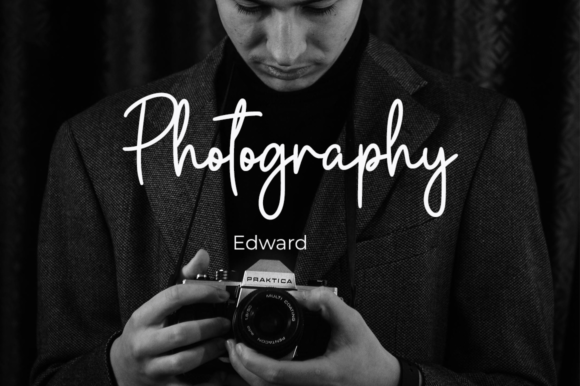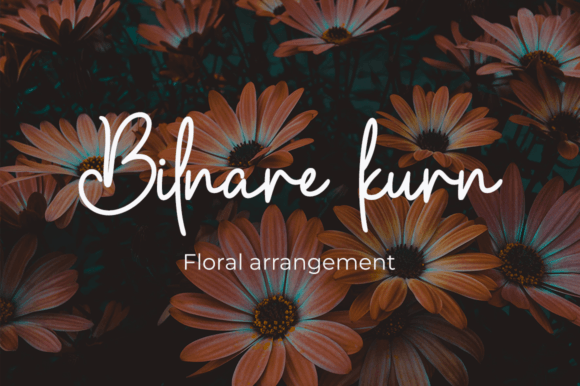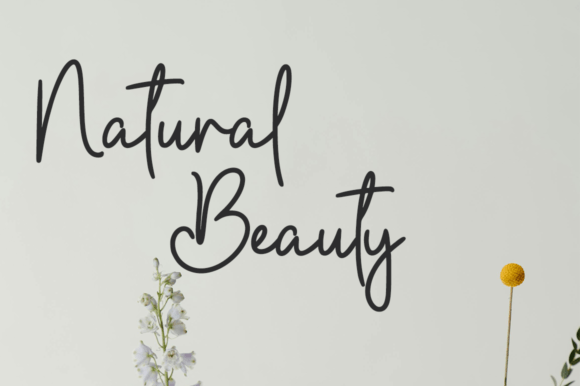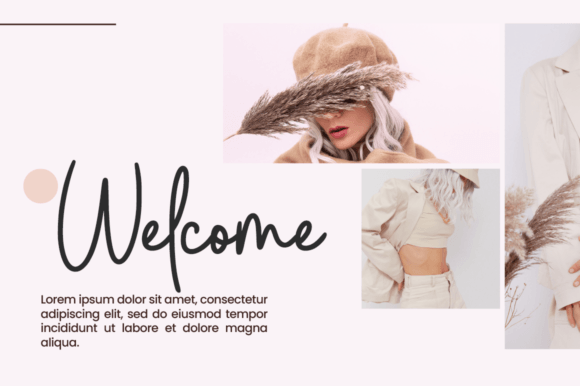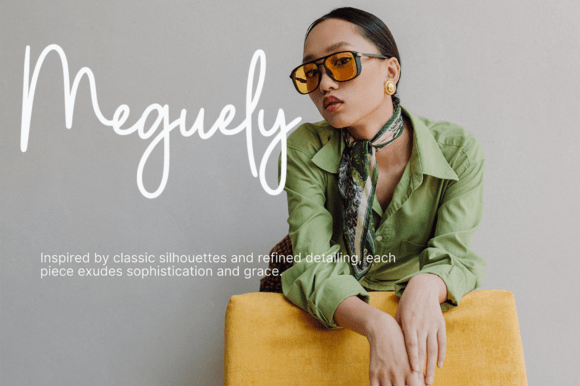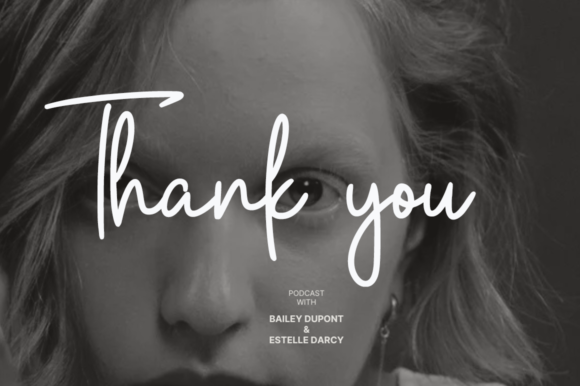
Gangka Font: The Elegance of Vintage Calligraphy for Modern Designers
There’s a moment in every designer’s life when they stumble upon a font that makes them stop in awe. Maybe it’s the perfect blend of elegance and playfulness, or perhaps it’s the way it transports them to a bygone era. For me, it was when I discovered the timeless charm of vintage calligraphy, which inspired me to explore further. And that’s when I came across the Gangka Font.
Skillfully designed to infuse sophistication into every stroke, Gangka Font is the perfect choice for designers seeking to elevate their work. Whether it’s a logo, invitation, or greeting card, Gangka Font adds a touch of class that speaks volumes. Its versatility makes it a valuable asset for designers, and its subtle charm is sure to leave a lasting impression on any audience.
Gangka Font Key Features
- Font Family: Gangka is a typeface designed for digital and print media, offering a unique blend of traditional and modern elements.
- Character Set: The font includes a comprehensive set of characters, including Latin, Greek, and Cyrillic alphabets, as well as punctuation and symbol sets.
- Unique Characteristics: Gangka’s distinctive design features include subtle brushstrokes, rounded edges, and a harmonious balance of thick and thin strokes, making it suitable for a wide range of applications.
Gangka Font Review
Overall, I have mixed feelings about the Gangka font. While it has some interesting features, it also has some limitations that prevent it from being a top choice for designers.
- The Gangka font has a unique and exotic feel to it, which can be perfect for projects that require a touch of cultural flair.
- The font is highly legible, even at smaller font sizes, which makes it suitable for body text and other areas where readability is crucial.
- The font family includes a range of weights and styles, making it versatile and easy to use in different design contexts.
- The Gangka font can be difficult to read at very large font sizes, where the bold lines and heavy strokes can become overwhelming.
- The font lacks a clear and consistent naming convention, which can make it confusing to navigate and use in design projects.
- The Gangka font is not optimized for digital use, which can result in blurry or distorted text when displayed on screens.
Overall, I would recommend the Gangka font for specific projects where its unique feel and cultural significance are valuable. However, for general design use, I would choose a more versatile and user-friendly font.
Tips for Getting the Most Out of Gangka Font
Here are some tips to help you get the most out of Gangka Font:
- Use Gangka Font for titles and headings to add a touch of elegance and sophistication.
- Combine Gangka Font with other fonts to create a unique and eye-catching design.
Gangka Font is suitable for a variety of use cases, including:
- Designing invitations and wedding stationery.
- Creating luxury branding and packaging materials.
- Developing high-end digital products and websites.
Q: Is Gangka Font available in different weights and styles?
Yes, Gangka Font is available in multiple weights and styles, including regular, bold, italic, and bold italic. This allows designers to create a range of visual effects and moods with the font, from clean and simple to bold and dramatic. The font also includes a range of OpenType features, such as ligatures and swashes, to add an extra layer of sophistication and flair to designs.